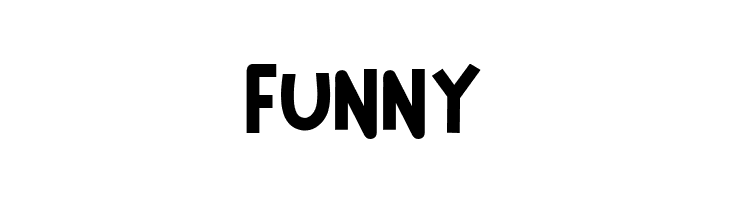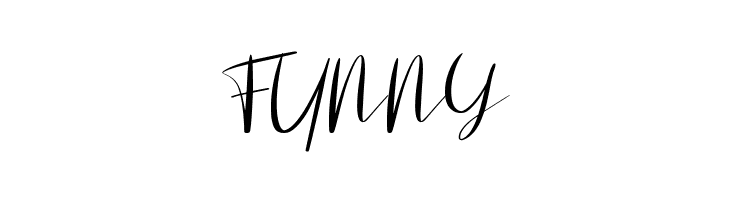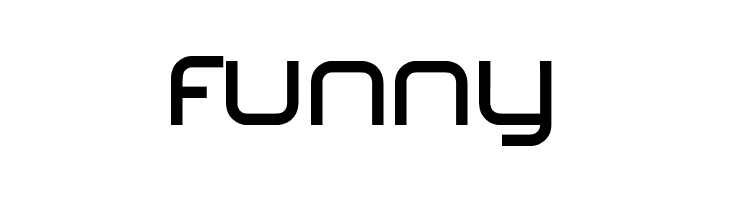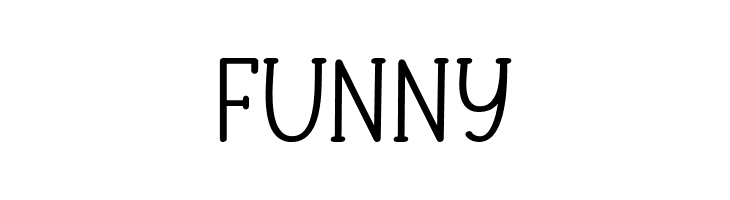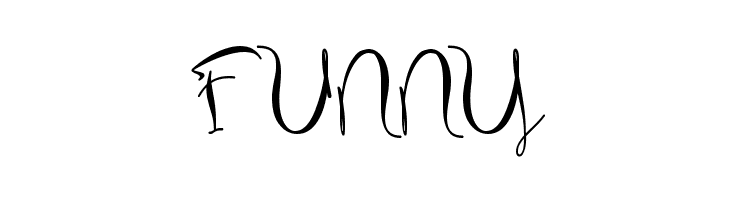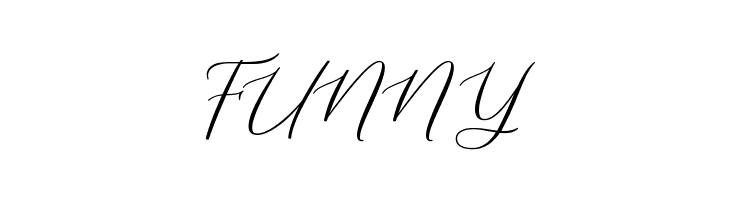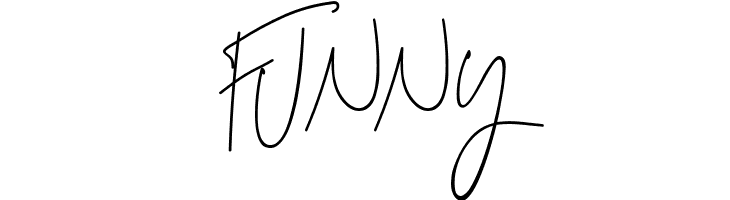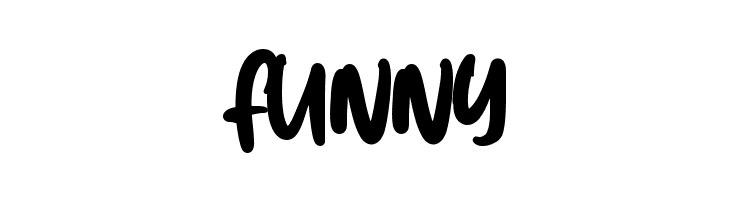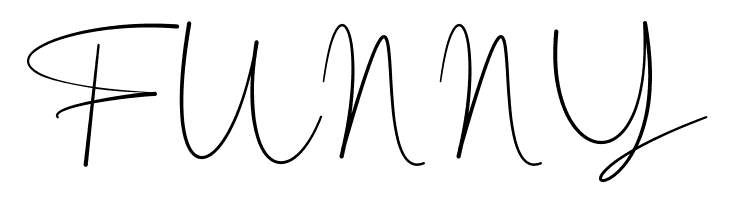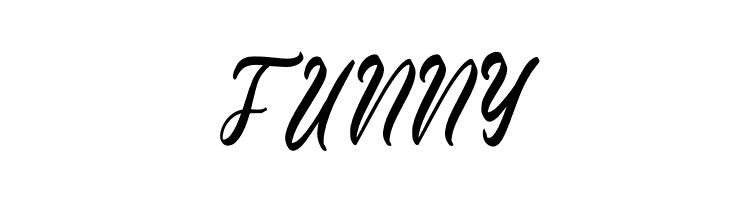
A bold, rounded, and modern font with a playful geometric style.
A bold, playful font with rounded, bubble-like characters.
A playful, handwritten font with rounded, uniform strokes.
A playful, hand-drawn font with rounded, consistent strokes and a casual style.
A modern, geometric font with a futuristic and sleek design.
A whimsical and decorative font with curly, looping strokes and elegant flourishes.
A playful handwritten font with dynamic and fluid letterforms.
An elegant script font with flowing, cursive style and consistent stroke width.
A playful and elegant script font with decorative swirls and smooth flow.
A playful, handwritten font with fluid strokes and a casual, approachable style.
A bold, expressive handwritten font with dynamic strokes.
A casual, flowing handwritten script with elegant loops and smooth strokes.
A fluid and elegant script font with a natural handwriting style.
A graceful cursive font with elegant swashes and fluid strokes.
An elegant script font with flowing swash elements and interconnected letters.
A bold, dynamic handwritten font with textured strokes and energetic flow.
A bold, hand-drawn font with jagged edges and a playful, spooky vibe.
A bold, playful font with a hand-drawn, irregular style.
A dynamic and expressive handwritten font with fluid strokes and elegant style.
Casual handwritten font with playful style.
A bold, dripping font perfect for horror-themed designs.
A horror-themed font with dripping, eerie characters.
A bold, eerie font with vine-like extensions, perfect for spooky themes.
A bold, jagged font with a chilling, horror-themed aesthetic.
A jagged, eerie font perfect for horror themes.
An intricate, gothic-style font with dramatic flourishes and sharp edges.
A bold, jagged font with a rugged and aggressive style.
A spooky, dripping font ideal for Halloween themes.
A spooky, dripping font perfect for horror themes.
A jagged, eerie font perfect for horror themes.
A bold, distressed font with a vintage, rugged appearance.
A bold slab serif font with strong, block-like serifs and a modern touch.
A bold, playful font with thick, rounded strokes and a hand-drawn feel.